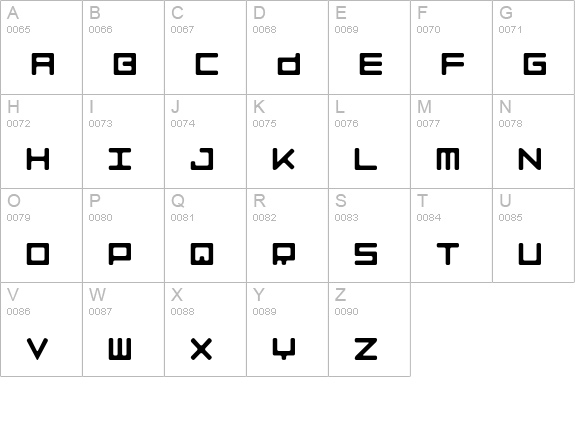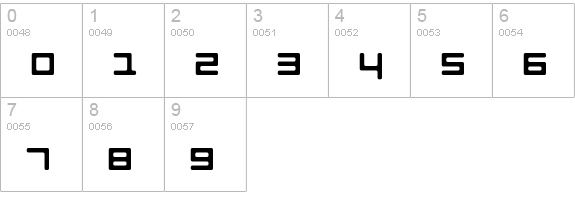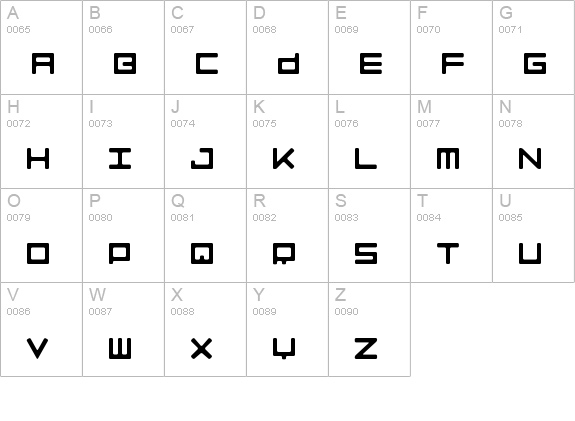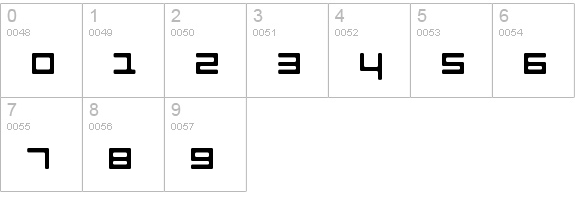
LuggageRoundRegular Font Details
LuggageRoundRegular font is a versatile and modern typeface that exudes sophistication and elegance. Its rounded edges and clean lines give it a unique and contemporary look that is perfect for a variety of design projects. Whether you're creating a logo, website, or print materials, this font will add a touch of style and professionalism. What sets LuggageRoundRegular font apart is that it is available for free download at FontsMarket.com. This means you can easily access this high-quality font without any cost, making it a valuable resource for designers and creatives looking to elevate their work. With its smooth curves and balanced proportions, LuggageRoundRegular font is a must-have addition to your font library.